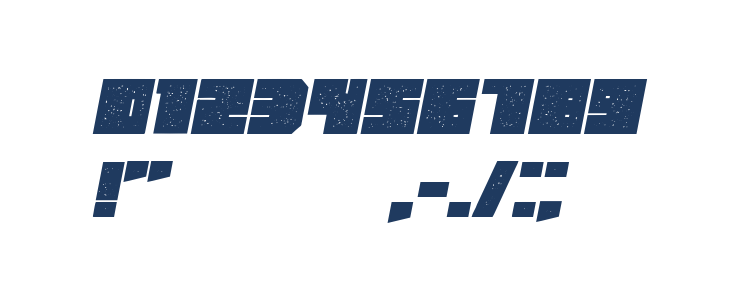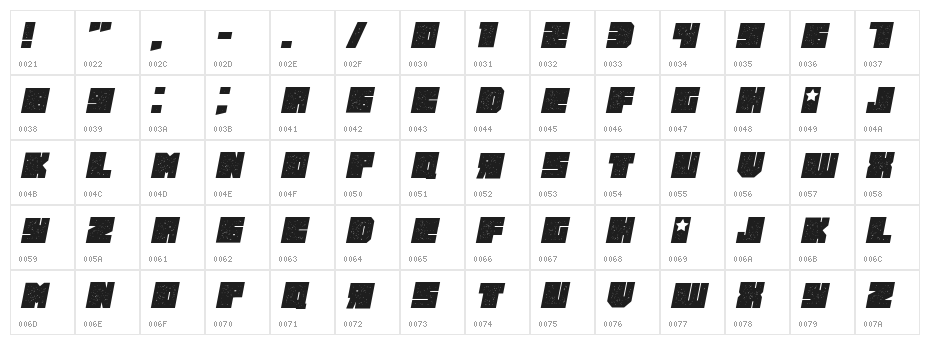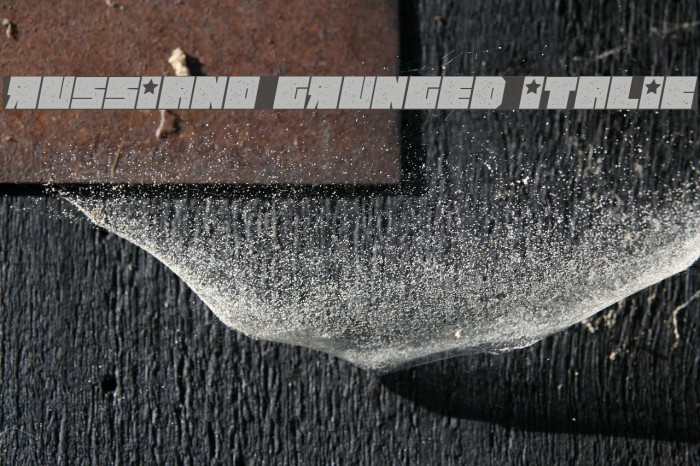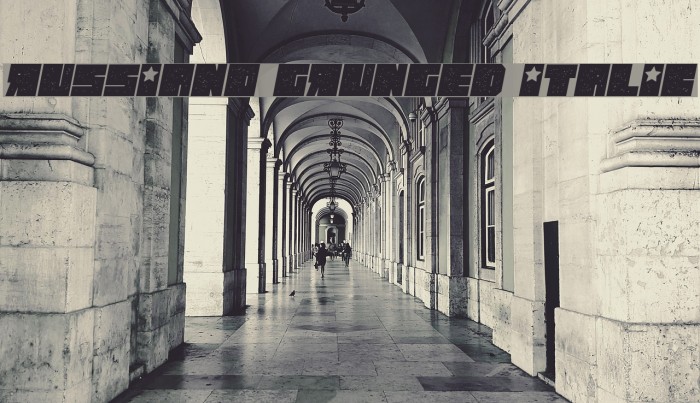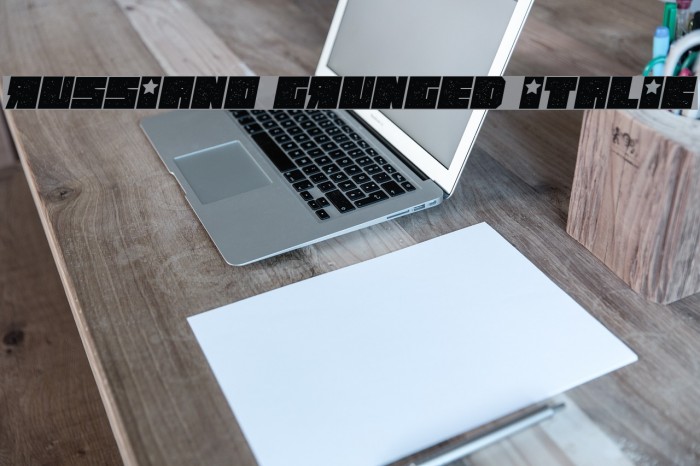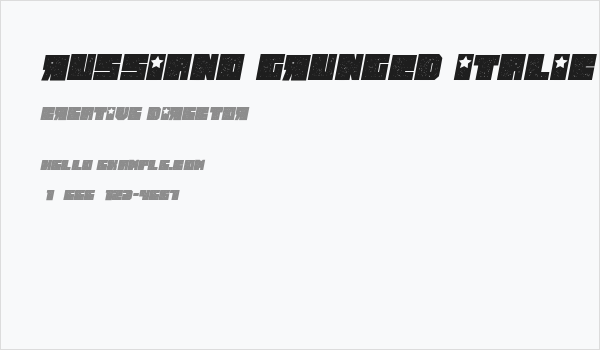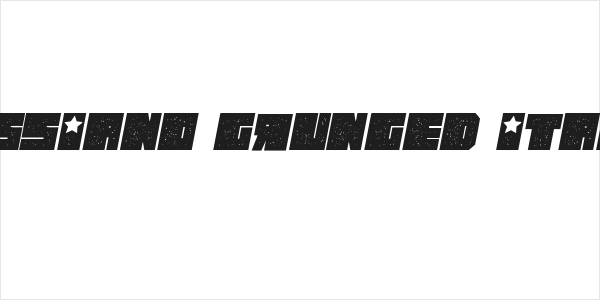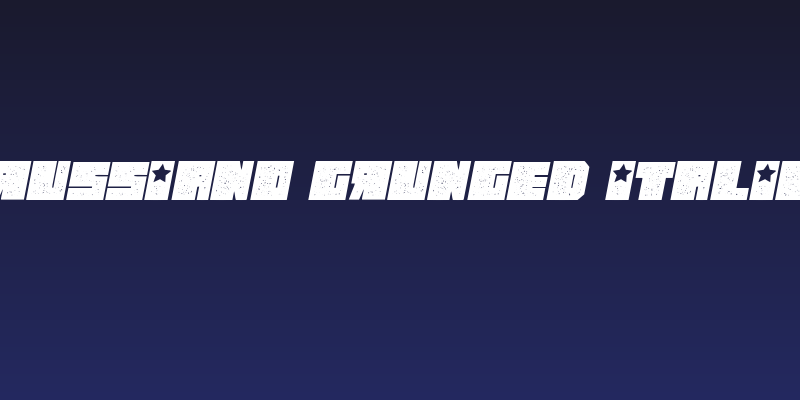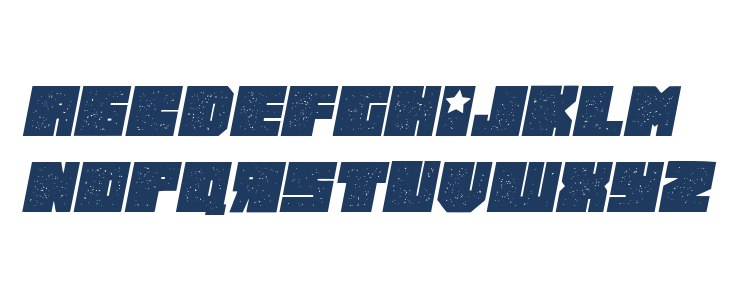
Russiano Grunged Italic Font
Russiano Grunged Italic Description
This font features a bold, italicized style with a distinct grunge texture, giving it a rugged and edgy appearance. The characters are blocky and angular, with a slight slant that adds dynamism and movement. The texture includes a speckled pattern that enhances the grunge effect, making it ideal for designs that require a raw, industrial feel. The uppercase and lowercase letters maintain a consistent style, while the numbers and special characters complement the overall aesthetic. This font is perfect for projects that aim to convey strength and boldness.
| Overall Style | Grunge, Edgy |
| Proposed Projects | Ideal for music album covers, posters, streetwear branding, and edgy graphic designs. |